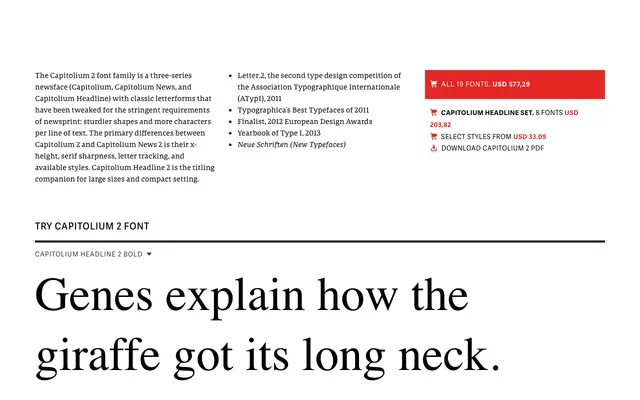
Capitolium 2
TypeTogether · Gerard Unger · 2011
Gerard Unger's three-series newsface optimised for newsprint — with dedicated Text, standard and Headline subfamilies tuned to each optical size.
Capitolium 2 provides a complete editorial system in 19 styles across three subfamilies, each calibrated for a specific size range: News for body text, standard for general editorial, Headline for display. Features include 350-plus glyphs per weight, four numeral sets, small caps and arbitrary fractions. Won the Letter.2 competition and featured in Typographica's Best Typefaces of 2011.
Three-series newsface with Text, regular and Headline optical sizes; classic letterforms with newsprint-specific adjustments; Gerard Unger design